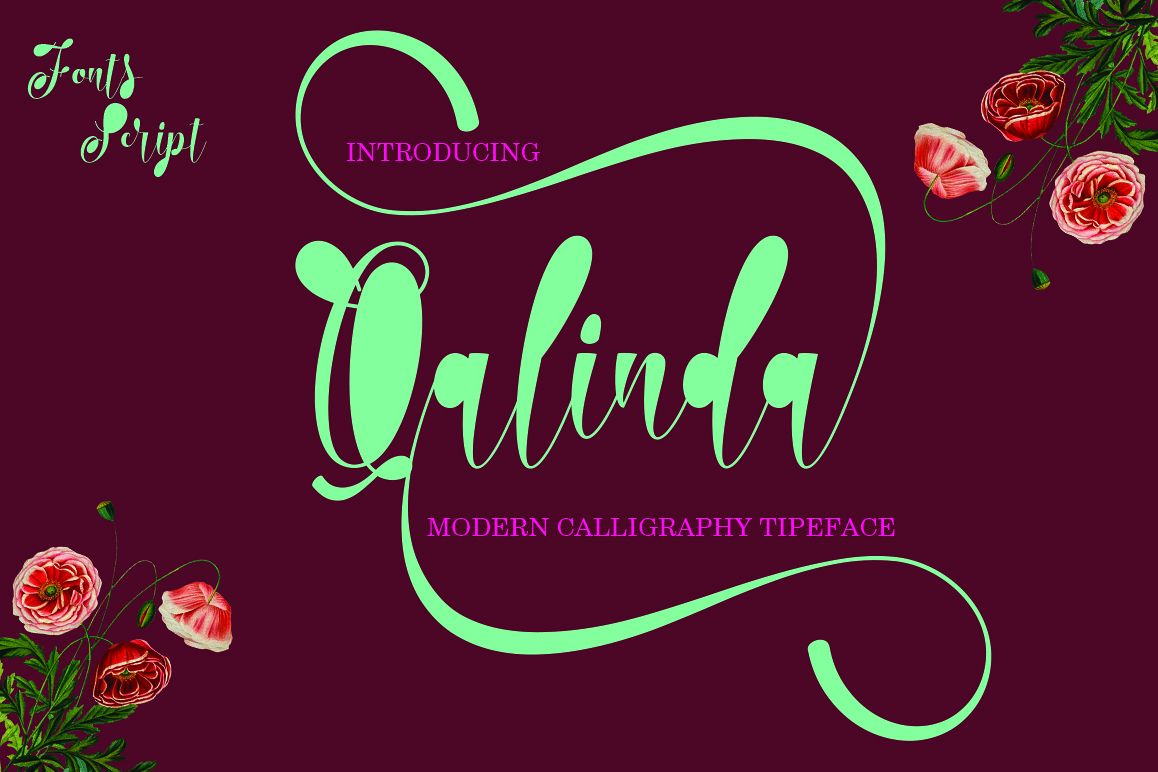
Qalinda
Qalinda Script is a stylish calligraphic font that has a varied base line, thick, classic and elegant touch. Can be used for various purposes. Such as title, signature, logo, wedding invitation, t-shirt, letterhead, nameplate, label, news, poster, badge etc.The Features of this fonts is:
• Standart ligatures
• PUA Unicode (Private Use Areas)